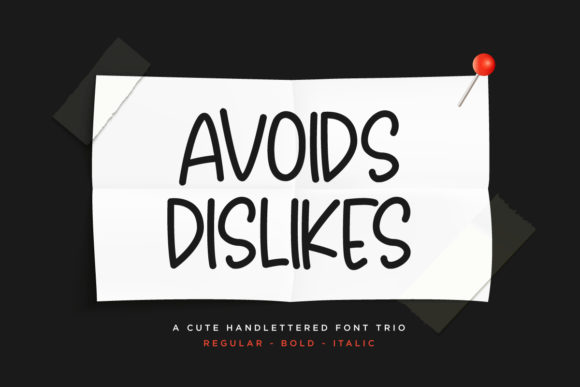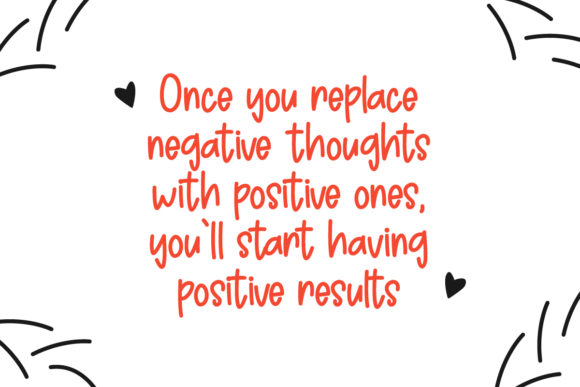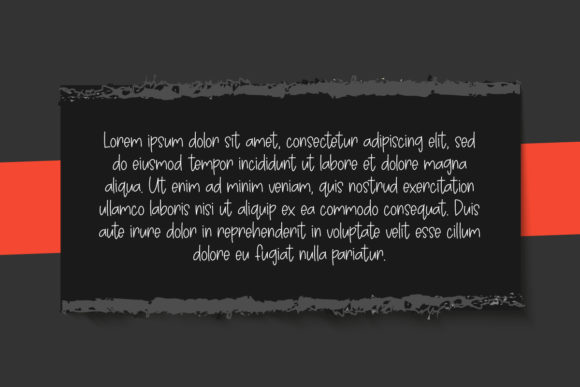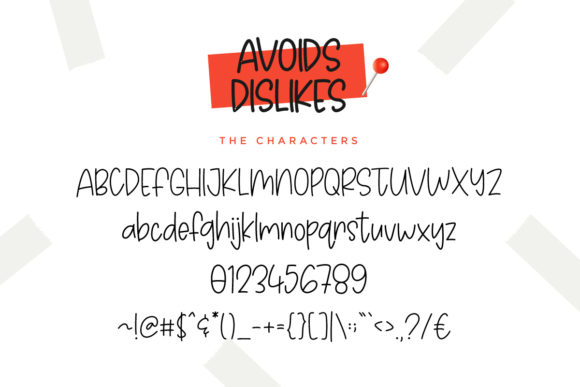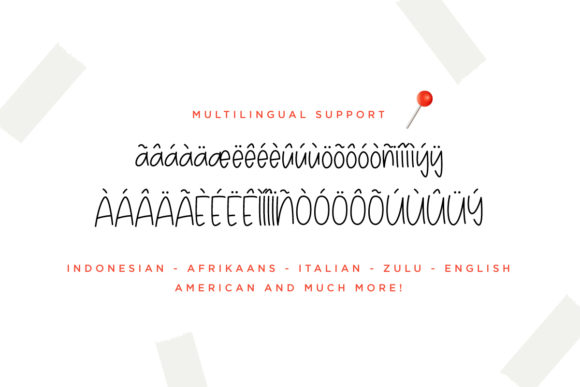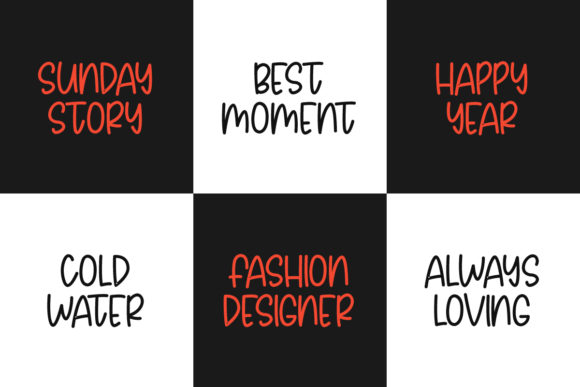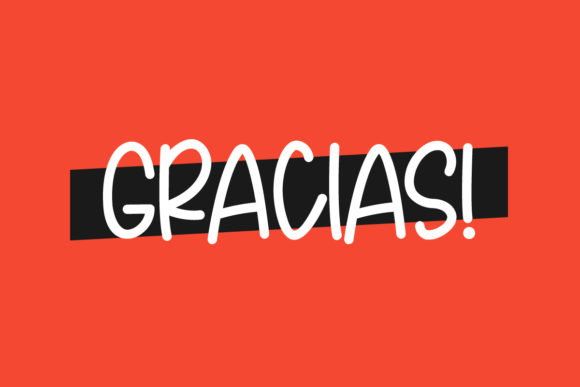
Avoids Dislikes Font
About Avoids Dislikes Font
The Avoids Dislikes is a beautiful handmade font. It has a fun and beachy vibe which is perfect for quotes, products, logos, packaging, banners, tees, story or posters with a lot of text.
It’s beautiful when used for cosmetic and feminine contexts, but is also masculine enough to be used for strong logos and branding.